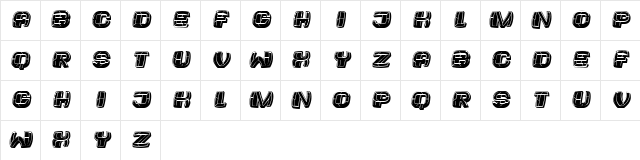
Alexandra Italic
Design Context for Alexandra
Alexandra is a composed and adaptable typeface that performs quietly and consistently across a wide range of design contexts. The slanted form adds forward momentum and visual energy.
Pro Tip: Use Alexandra for emphasis, pull quotes, and subheadings where its slanted energy can add rhythm to the layout.